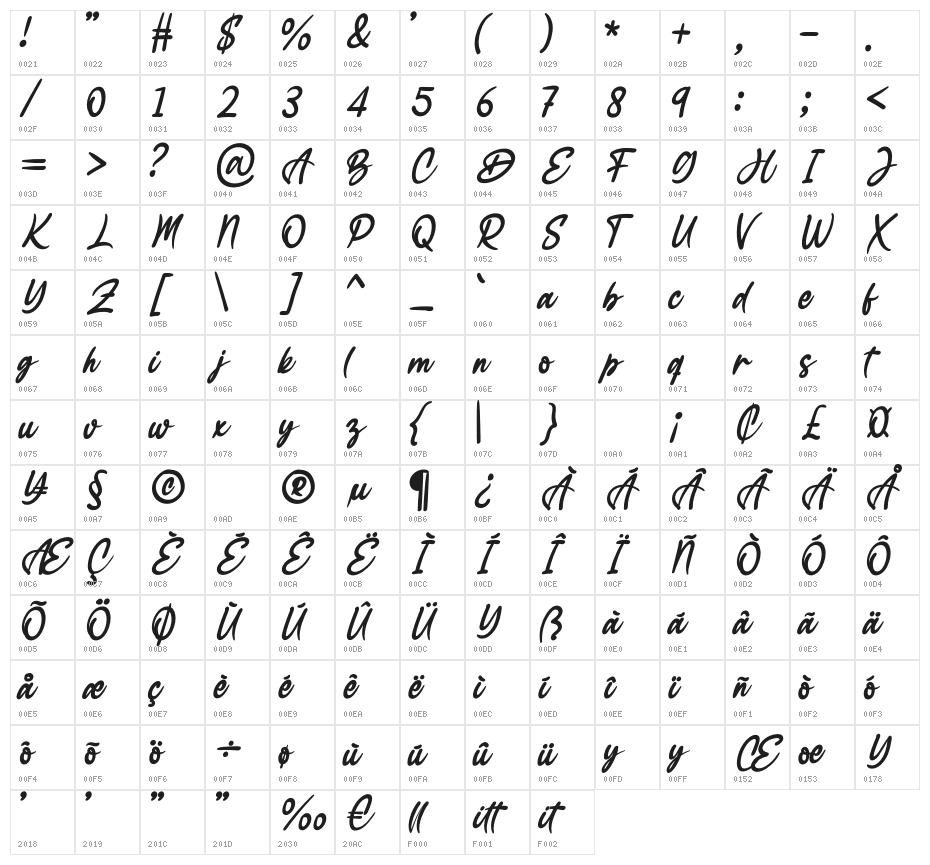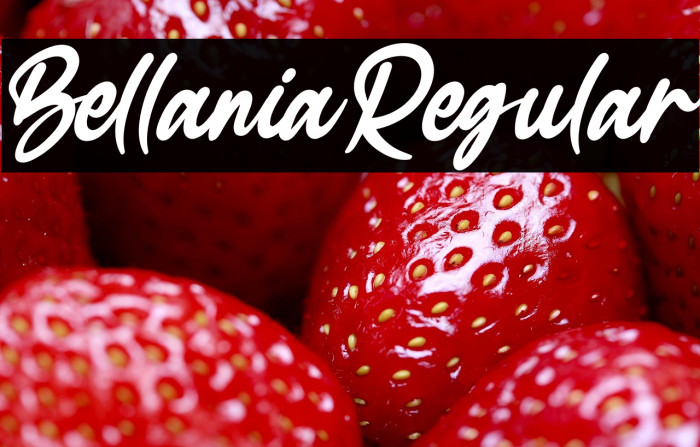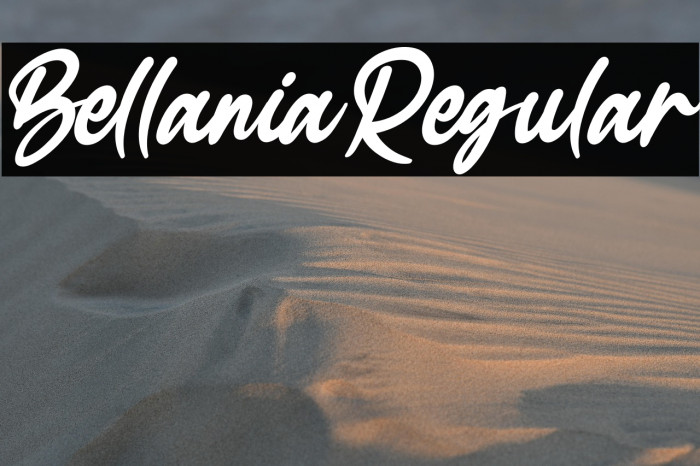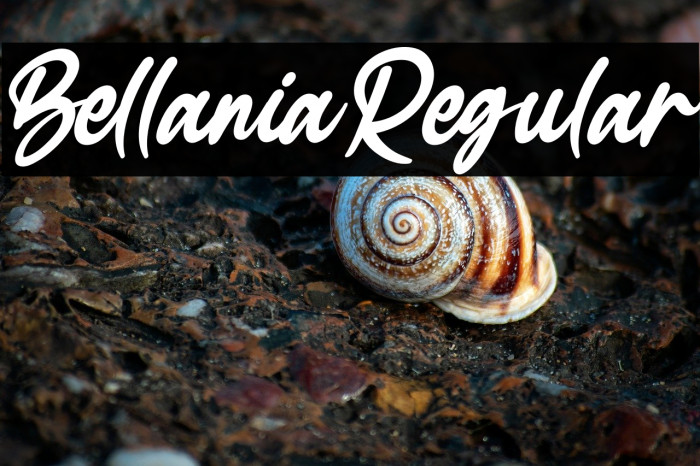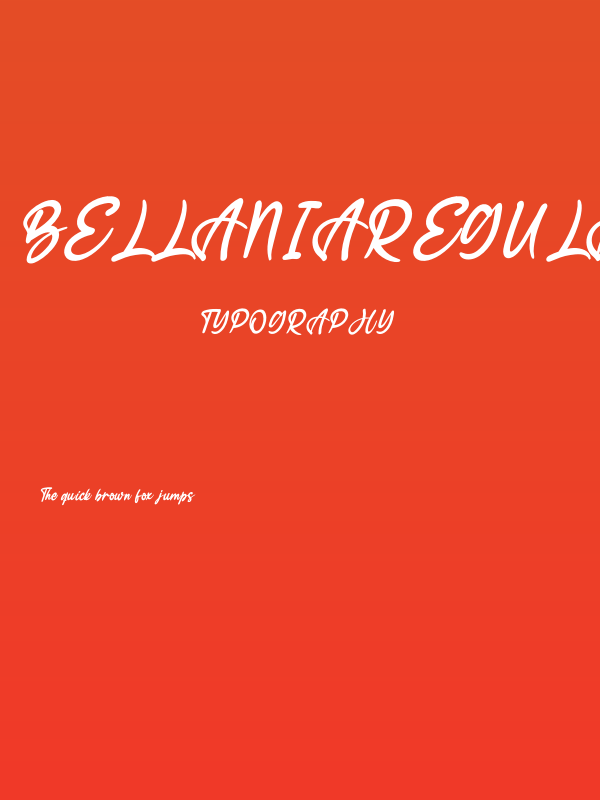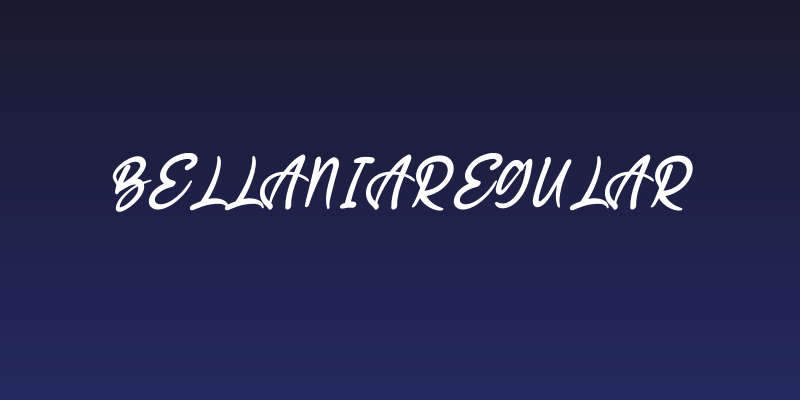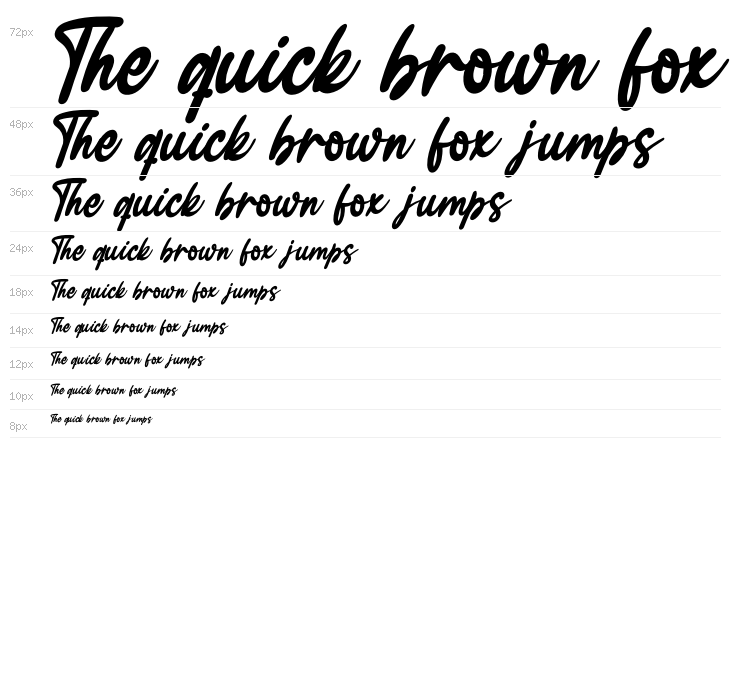
BellaniaRegular Font
BellaniaRegular Description
A bold, flowing script font with a handwritten appearance, featuring connected letters, dynamic strokes, and a casual yet elegant style. The characters have a consistent slant and rounded terminals, with prominent ascenders and descenders.
| Overall Style | Decorative, Handwritten, Modern |
| Use Case | Logos, Headlines, Invitations, Branding |
| Proposed Projects | Greeting cards, invitations, branding, social media graphics, packaging, and posters. |